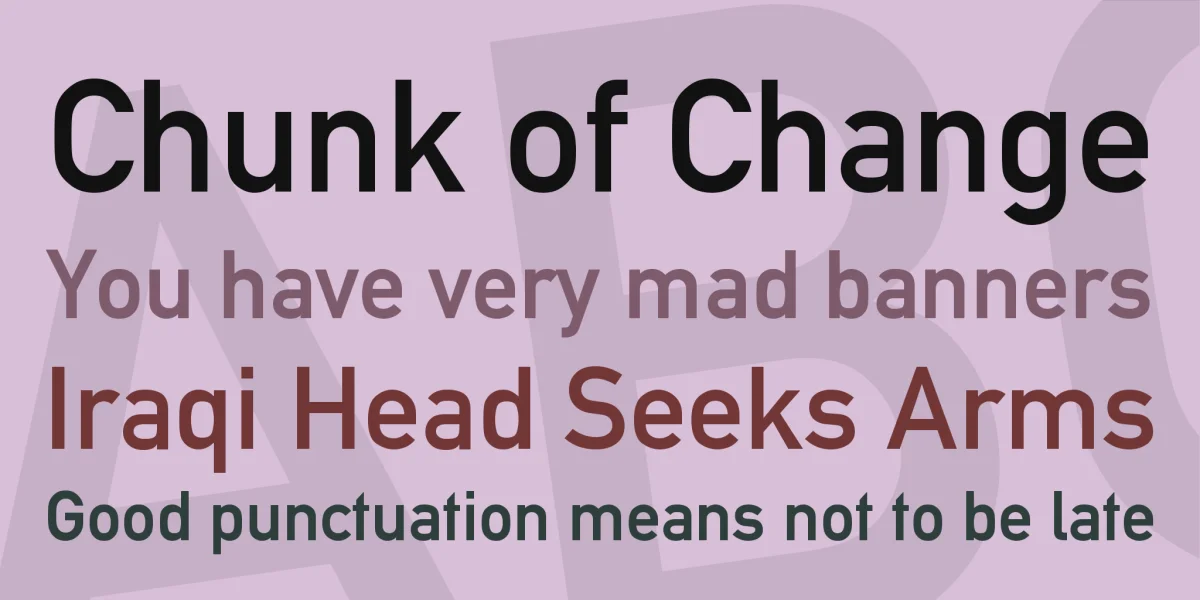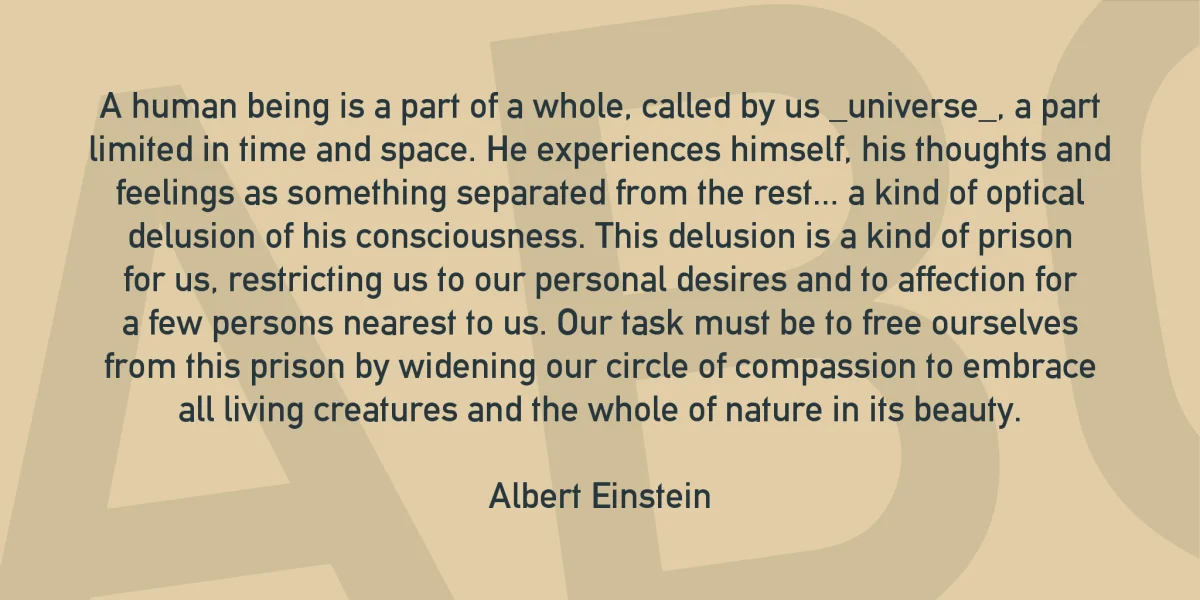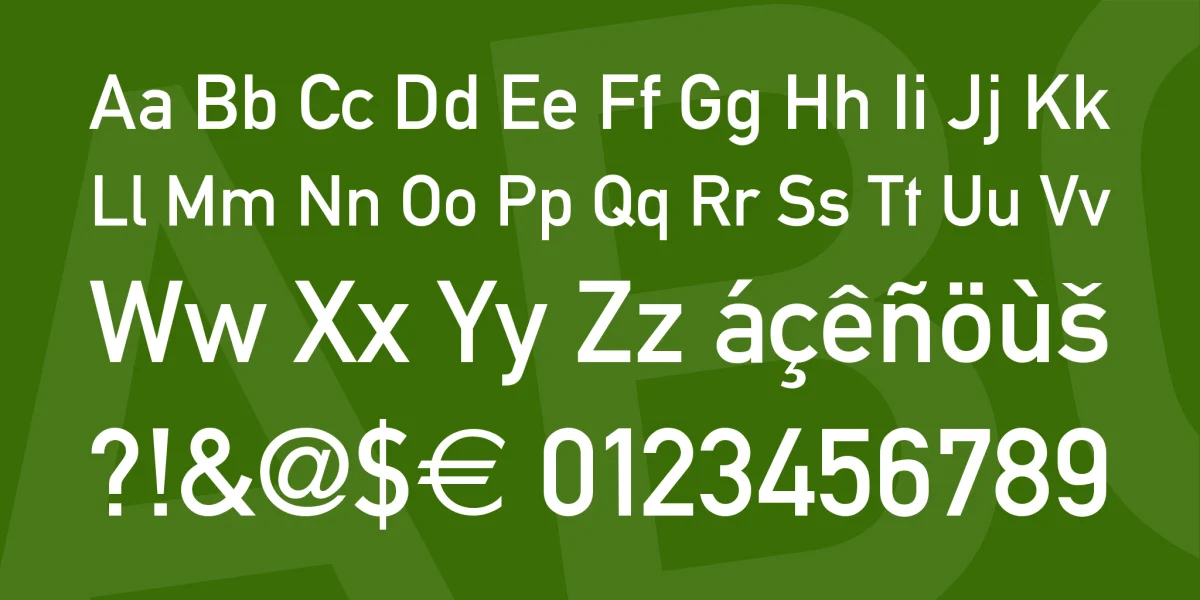
The DIN 1451 standard in Scripture is in Germany the default font for everything that has to do with traffic - well, except for the marital times :-) - and is similar in Austria and even in Greece (there but of course with Greek letters) used.
It was developed from the standard of the Prussian Railway Administration and published on patterning IV 44 font and has been updated several times. Thus, the small t got a bow and 6 and 9, the sheets were stolen. Thus the Prussian state railways labeled with the direct precursor of the DIN rail writing their vehicles. The labels were attached naturally in various plants - so they had to be very simple, only circular arcs and straight lines, so easy templates for common documents could be created so that all could use the same font. The German Reichsbahn also often used the width type. Still uses the German Bahn AG for technical inscriptions the standard DIN 1451 - font. However, with small modifications to the usual DIN 1451. This is also used in street signs and house numbers, and until 2000 also on German license plate. Furthermore, you can find them on insignia, which are also all have the same appearance. This can be achieved but only if a standard font is taken. Thus, the German army has it already though mostly used as stenciled with the typical bars. And also in advertising and graphic it still has its importance. Here now is the original version ...